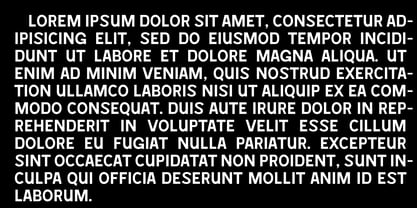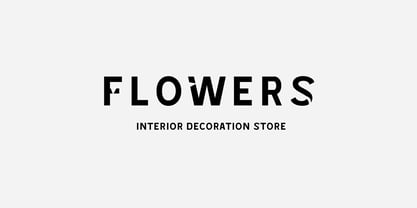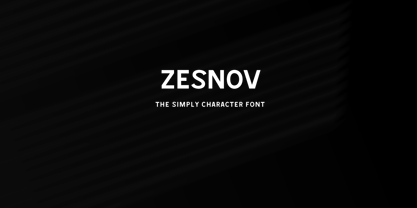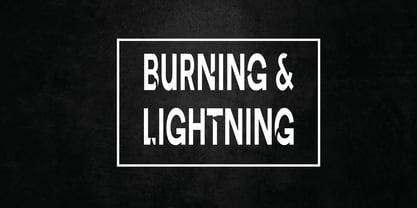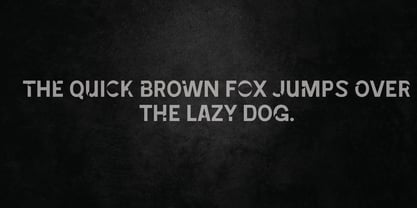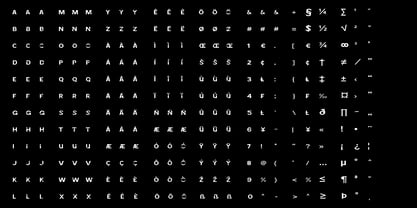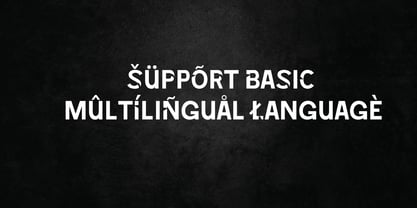
Zesnov
by Phonnastudio
The Zesnov Font Family was designed by Muhammad Suhery and published by Phonnastudio. Zesnov contains 1 styles.
Zesnov is a distinctive font characterized by its exclusive use of uppercase characters and a clean, minimalist design. It comprises only uppercase letters, rendering it ideal for titles, taglines, logos, banners, and more. The font offers three variations of alternate letters, with all character variations included in a single font. Additionally, the font contains 3 Variations of Latin letters, 3 Variations of basic multilingual, 3 Variations of numbers and punctuation.